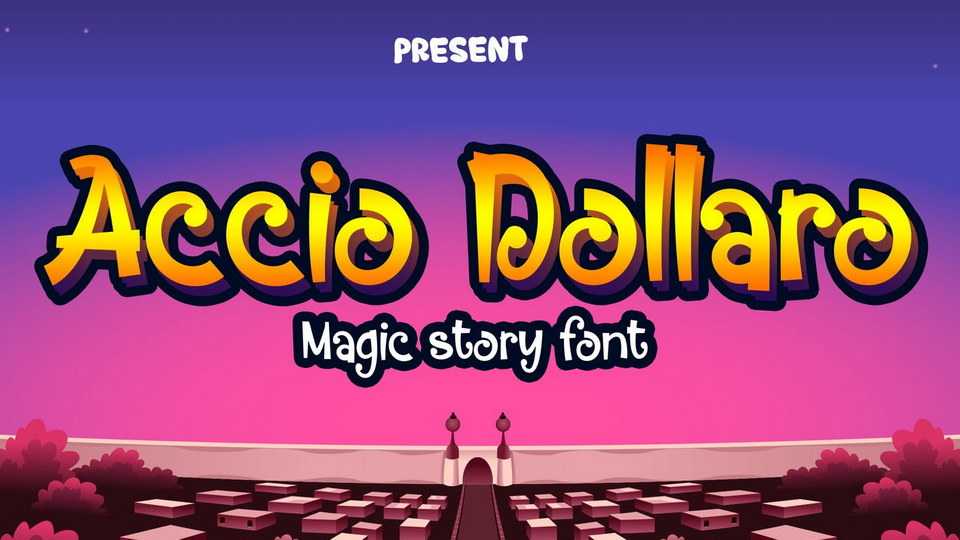
Download Accio Dollaro font, a funny kids typeface, curled like a wand being swift by the kid’s wizard. The spell is mostly cute ended. And will makes the world a happier place to lived in.